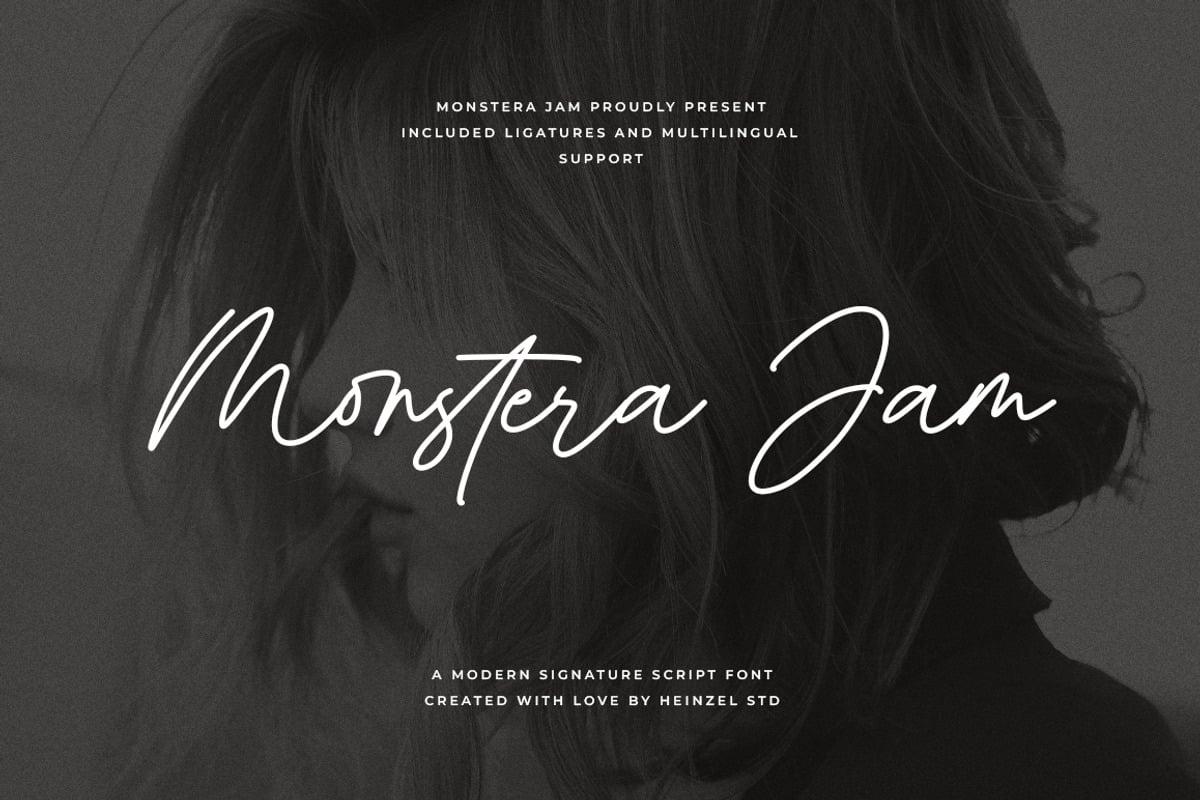
Monstera Jam Modern Signature Font
Effortlessly elegant handwriting meets modern design — Monstera Jam is the signature font your brand deserves.
Monstera Jam is a modern signature script typeface that blends natural elegance with fluid, handwritten strokes. Every curve feels authentic and personal, making your designs look luxurious and timeless right out of the box.
Perfect for a wide range of creative projects, including:
- Branding and logo design
- Wedding invitations and stationery
- Photography watermarks
- Social media graphics and posts
- Regular and Bold versions
- Uppercase and Lowercase characters
- Numerals and Punctuation
- Smooth Ligatures
- Multilingual language support